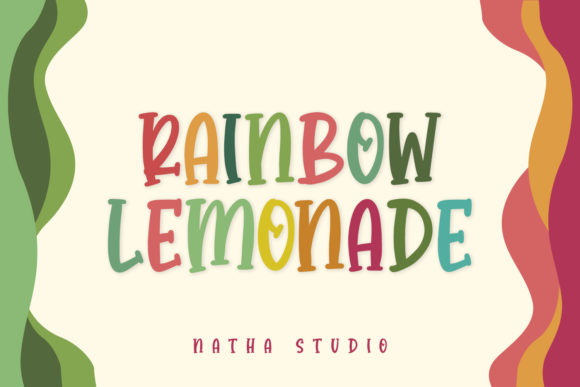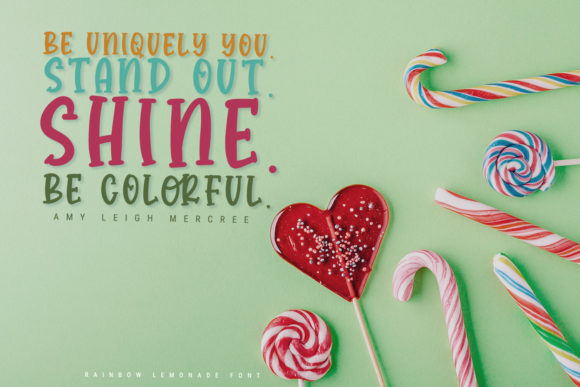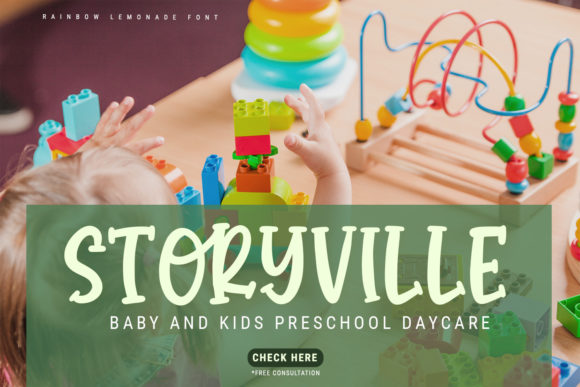
About Rainbow Lemonade Font
Rainbow Lemonade is a quirky and casual handwritten font. Whether you’re using it for crafting, digital designing, presentations or greeting cards making, it’s perfect!